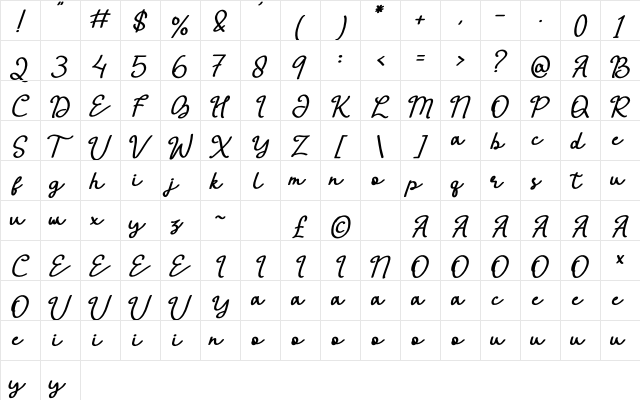
Antha LigatureSwash
| Foundry | RantauType |
| Designer | Yudi Pratama Chandra |
Design Context for Antha Typeface
Antha flows with the natural rhythm of handwritten lettering, making it ideal for designs that call for warmth and personal expression.
Font Pairing: Combine Antha with a simple geometric sans for maximum contrast — the tension between flowing curves and clean structure is a classic typographic pairing.
Pro Tip: Use Antha for short runs of text — names, titles, or taglines. Extended body copy in script faces tires the eye quickly.